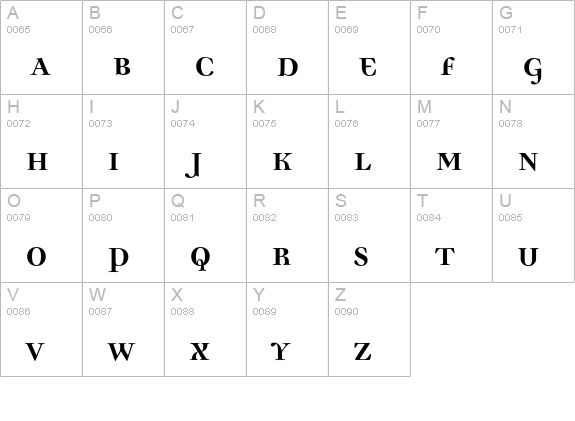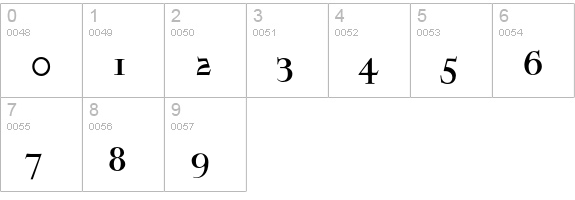
DemocraticaBold Font Details
DemocraticaBold is a modern and stylish font that exudes confidence and sophistication. With its bold and eye-catching design, this font is perfect for making a statement in your projects. Whether you are creating a poster, logo, or website, DemocraticaBold will help your text stand out and grab attention. The best part? DemocraticaBold is completely free to download at FontsMarket.com, making it accessible to all designers and creatives. Say goodbye to expensive font purchases and restrictions - with DemocraticaBold, you can unleash your creativity without any limitations. Download this versatile and striking font today and elevate your designs to the next level.